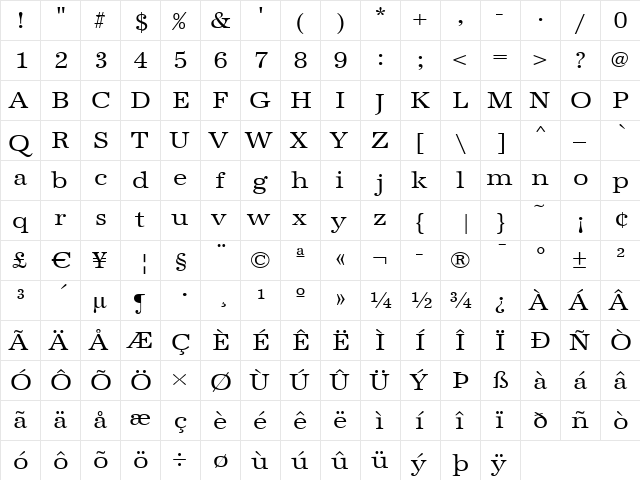
IrisBeckerExtended Regular
Design Context for IrisBeckerExtended Typeface
IrisBeckerExtended offers clean, dependable letterforms without strong stylistic allegiance, making it a practical choice for designers who need flexibility.